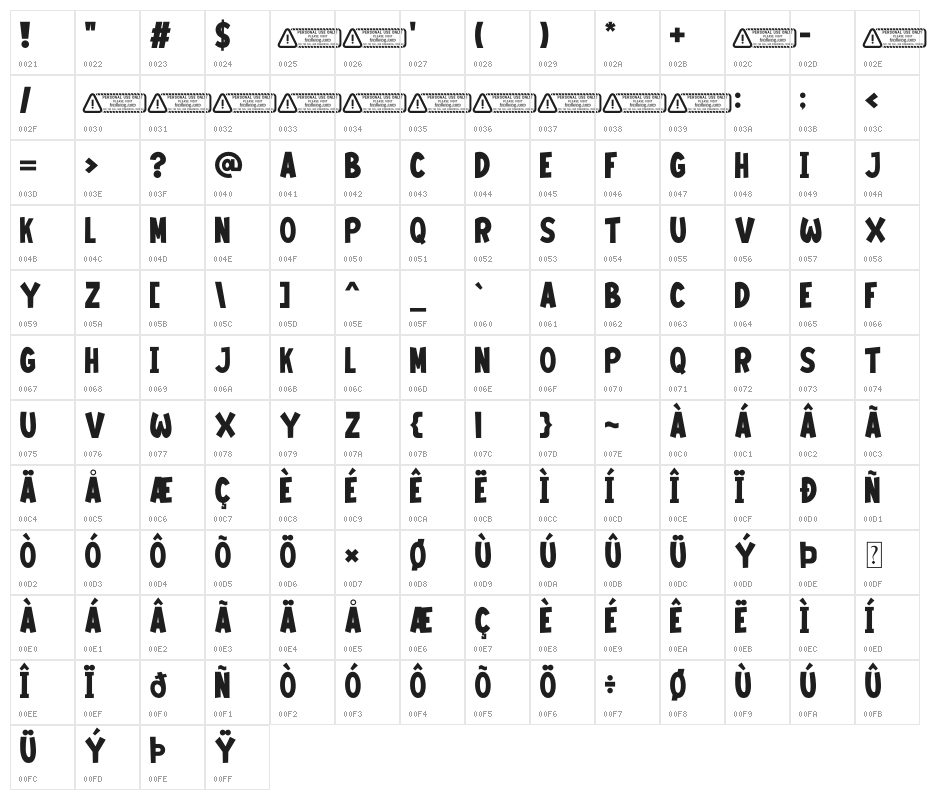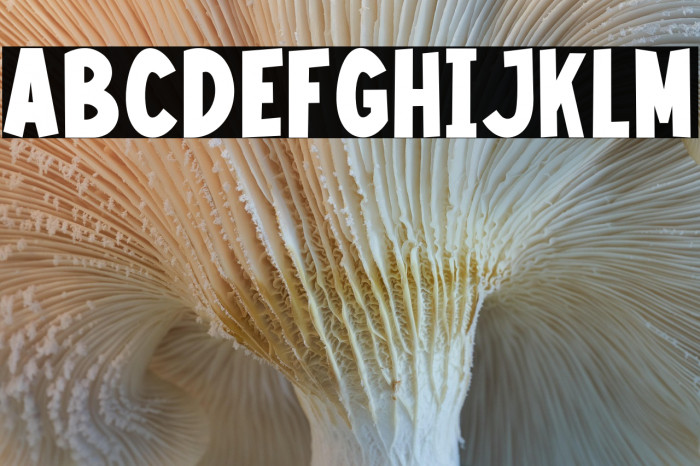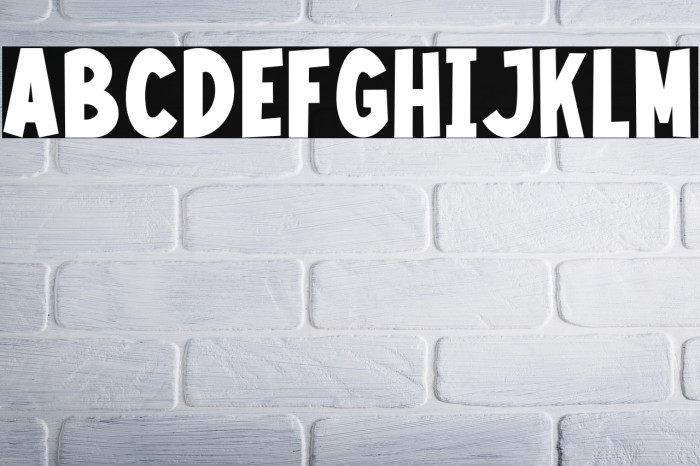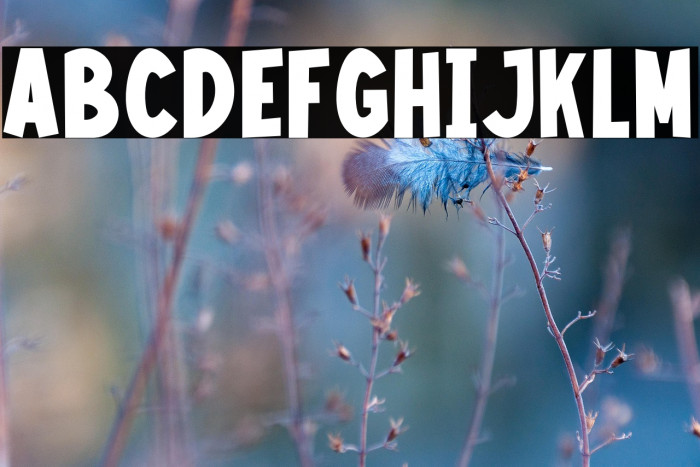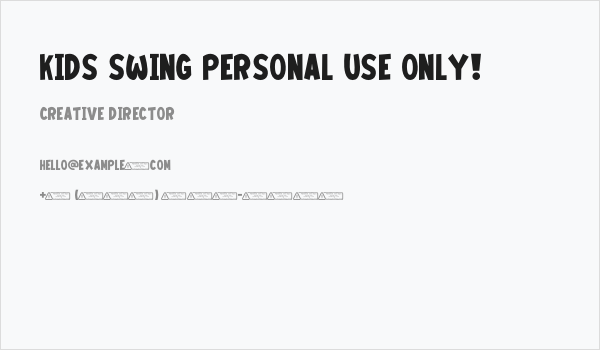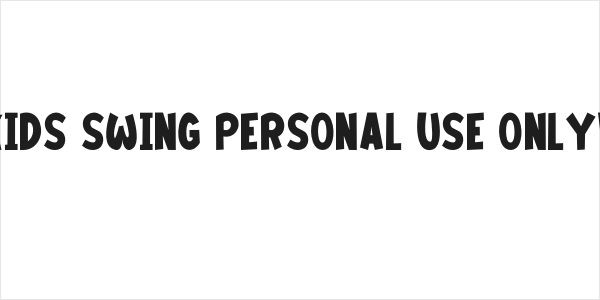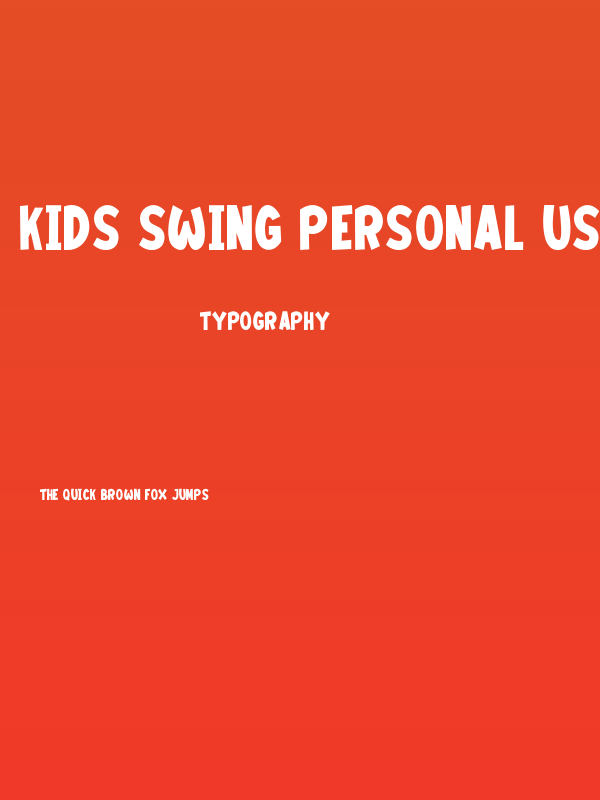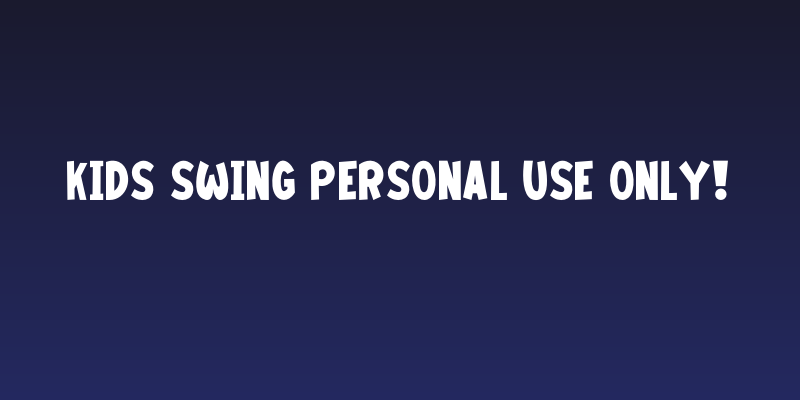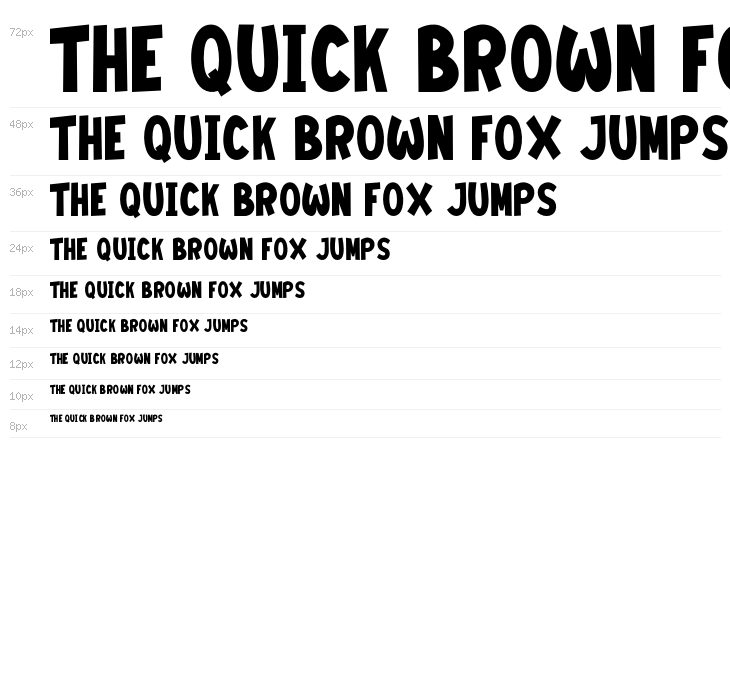
Kids Swing PERSONAL USE ONLY! Font
Kids Swing PERSONAL USE ONLY! Description
This playful and bold font features thick, rounded letters with a whimsical, childlike quality. The uppercase letters are uniform in height, with a slight tilt that adds a sense of motion and fun. The lowercase letters maintain the same playful style, ensuring consistency throughout. The numbers and special characters are designed to match the overall theme, making them suitable for creative projects aimed at a younger audience. The font's thick strokes and rounded edges give it a friendly and approachable appearance, perfect for conveying a sense of joy and excitement.
| Use Case | Headlines, Logos, Children's materials |
| Proposed Projects | Ideal for children's books, educational materials, playful branding, and toy packaging. |